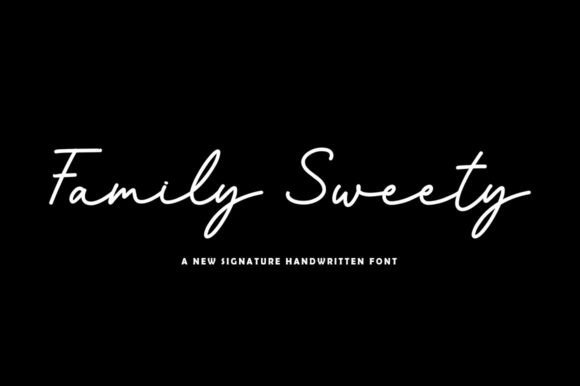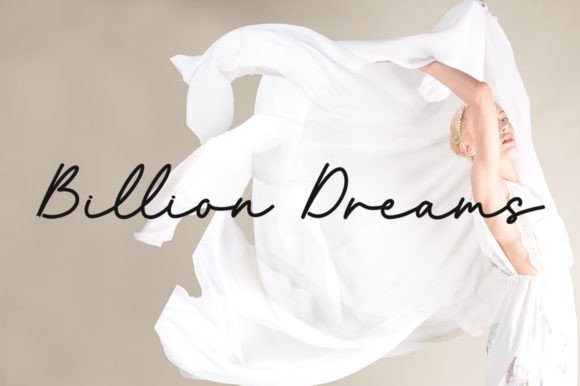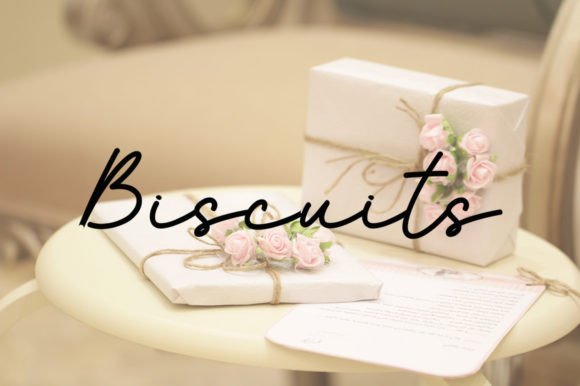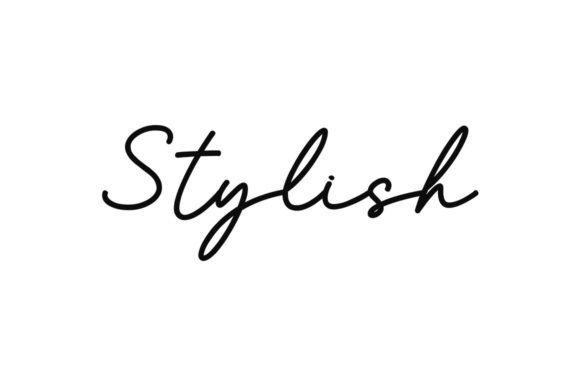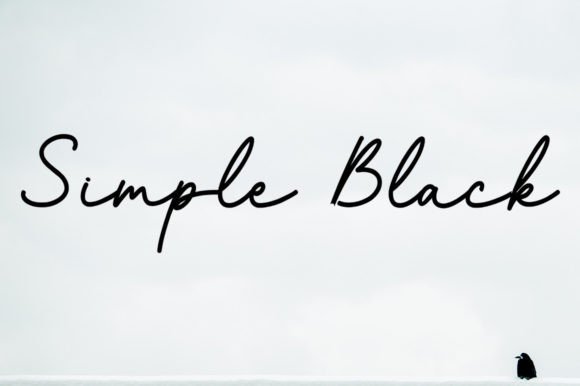
Script Fonts Family Sweety 0 167 FacebookTwitterPinterestWhatsApp 1 of 5 Family Sweety Poster 2... Family Sweety Poster 3... Family Sweety Poster 4... Family Sweety Poster 5... About Family Sweety is a distinct graceful script font. Fall for its ravishing style and use it to create gorgeous wedding invitations, beautiful stationary art, eye-catching social media posts, and much more! DOWNLOAD NOW